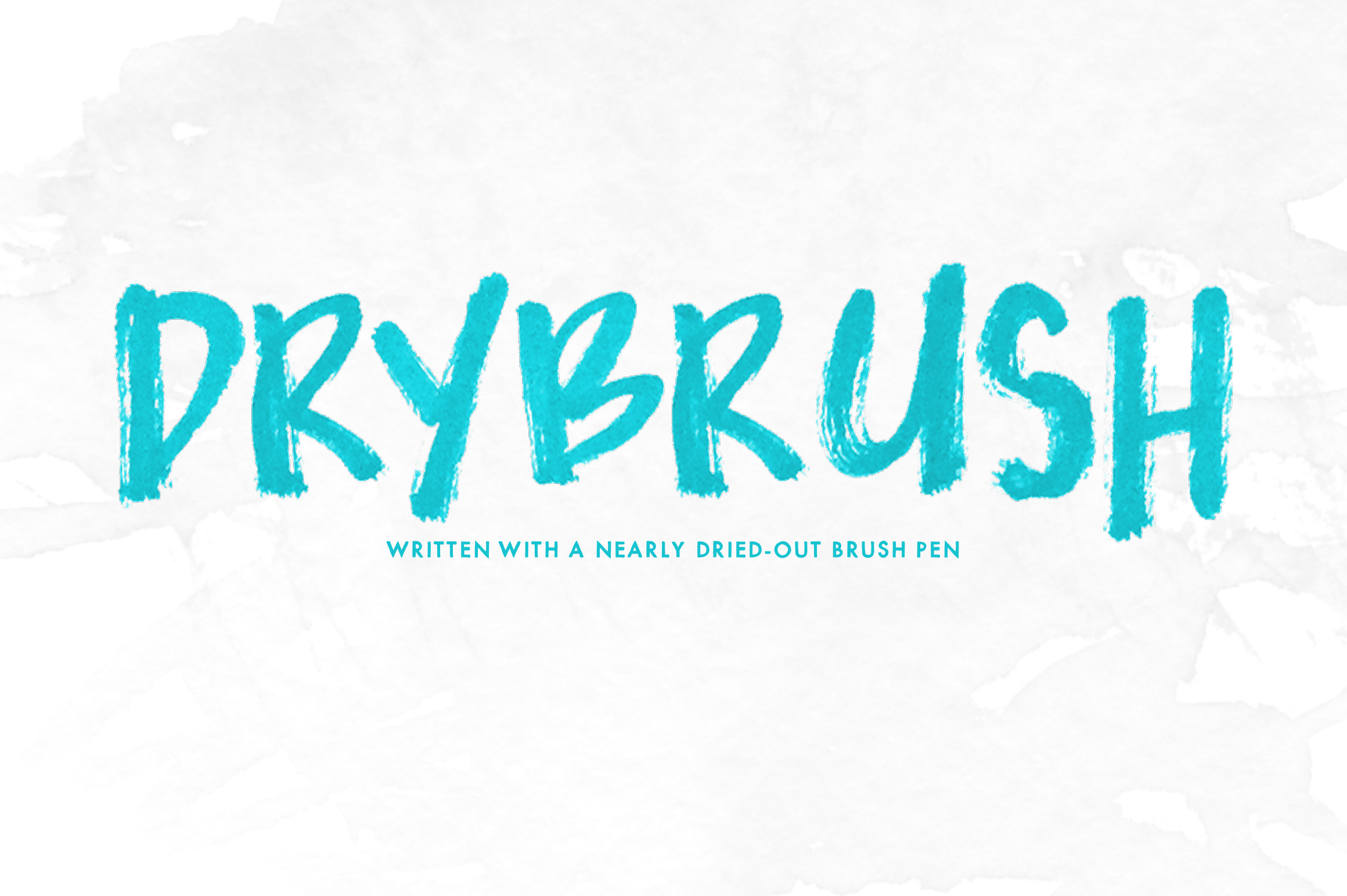
Drybrush — OpenType SVG Font Trio
MIX DRYBRUSH was written with a nearly dried-out brush pen. This font is perfect for handmade and DIY themed projects.
MIX DRYBRUSH includes:
- ABCDEFGHIJKLMNOPQRSTUVWXYZ
- abcdefghijklmnñopqrstuvwxyz
- 0123456789 !@$#%^&*()
- `~+=[]:;’”,.|/?{}“”‘’-
MIX GRUNGY includes:
- ABCDEFGHIJKLMNOPQRSTUVWXYZ
- 0123456789 !@$#%^&*()`~
- +=[]:;'",.|/?{}“”‘’-–_…₱¢«»°♥❤